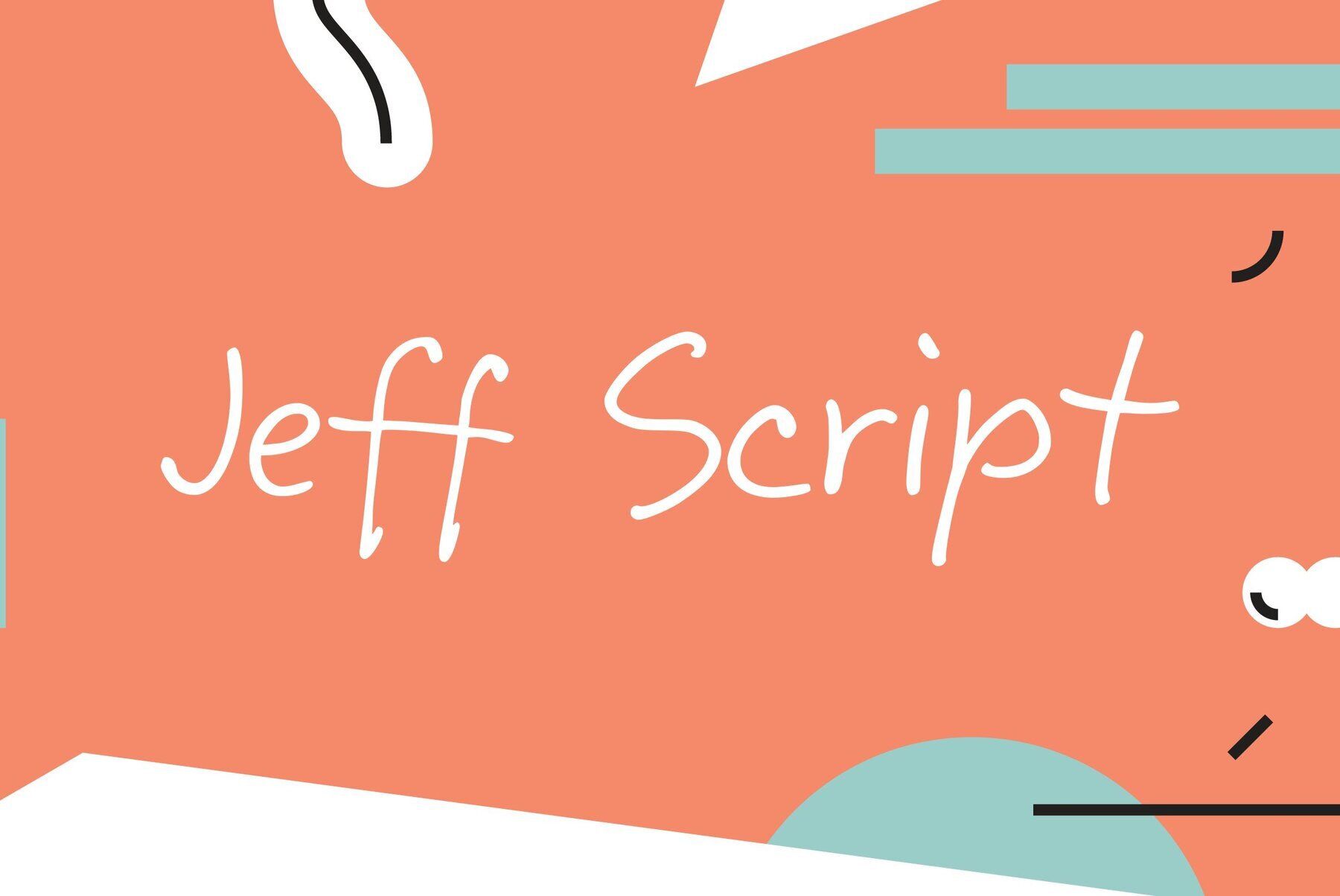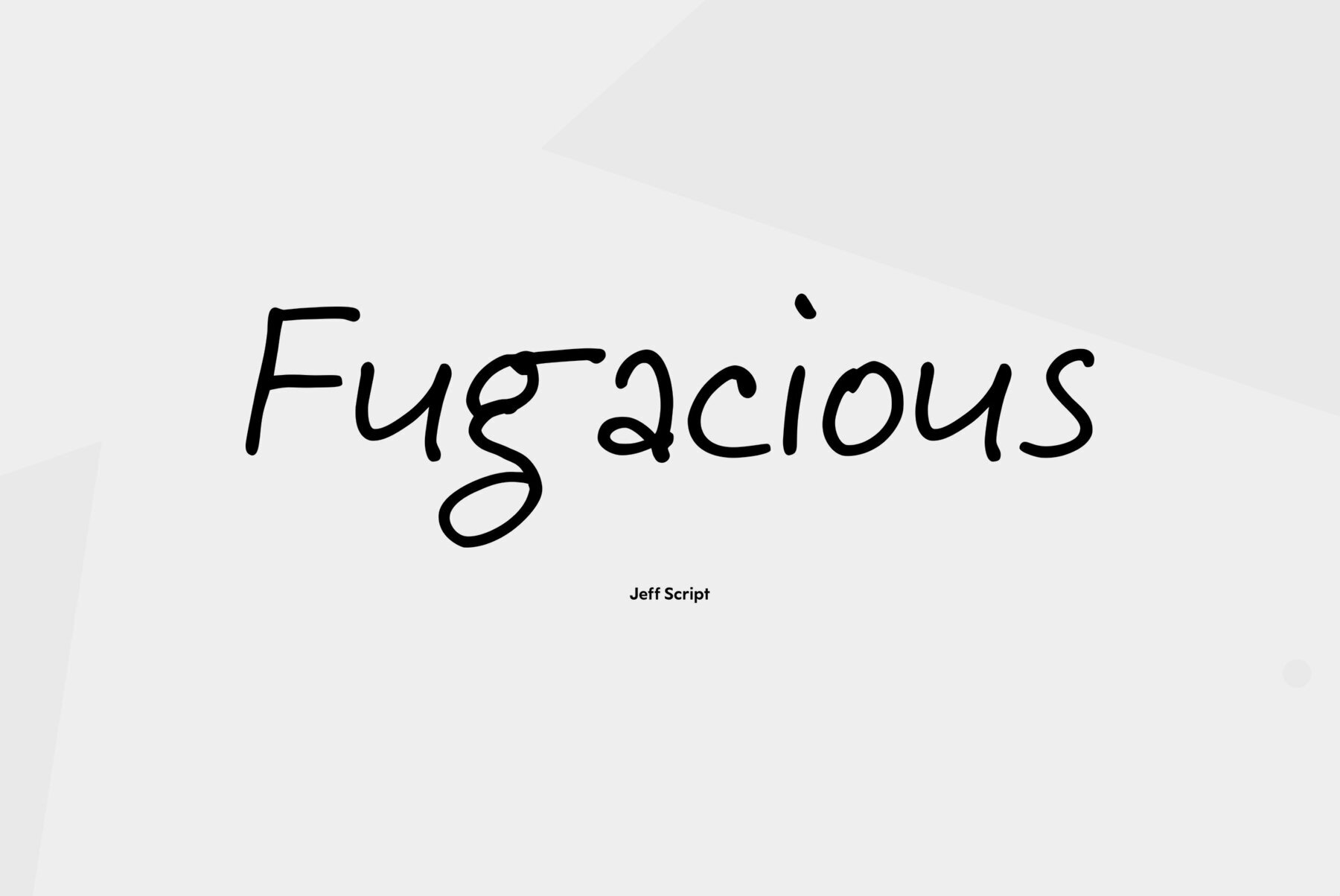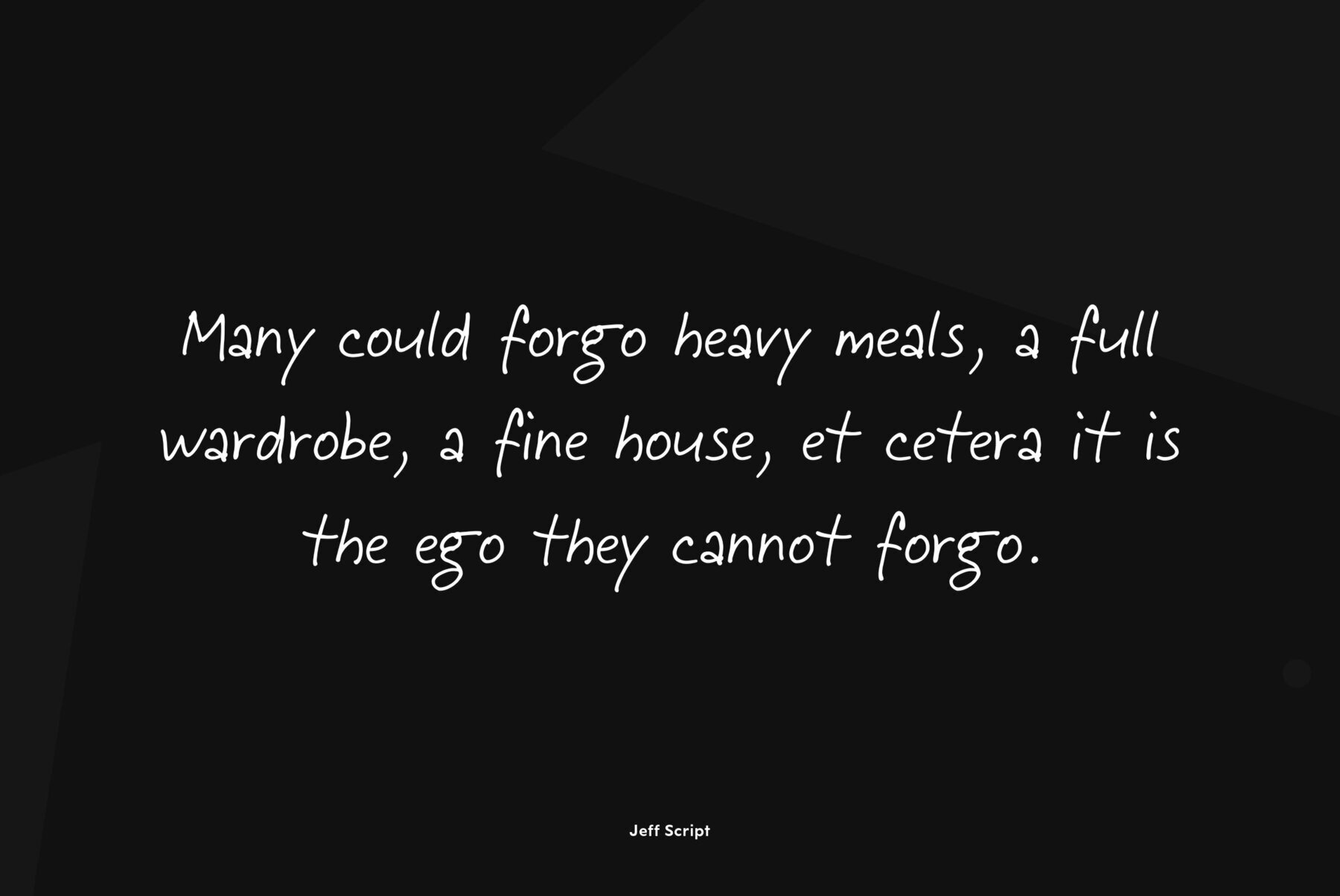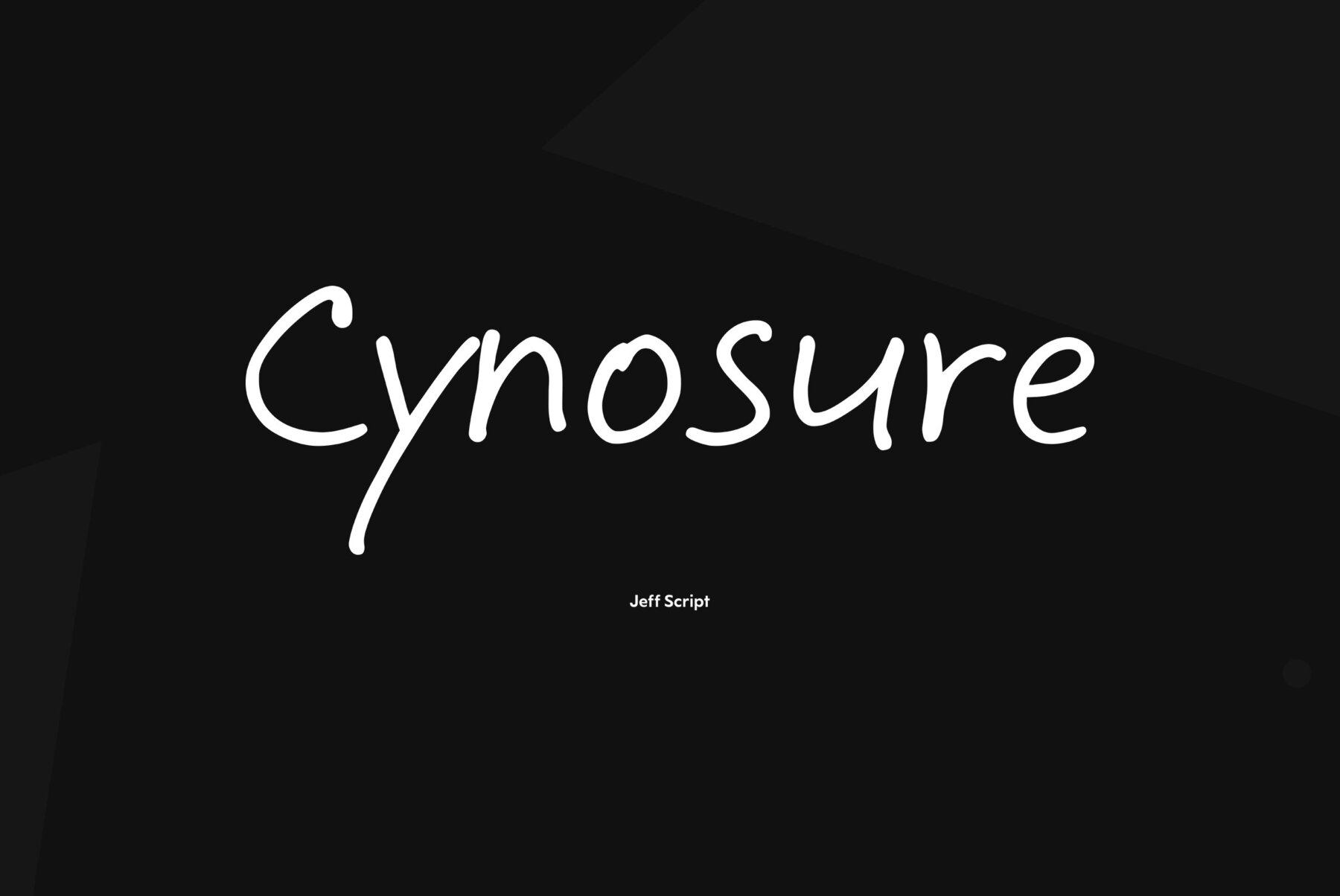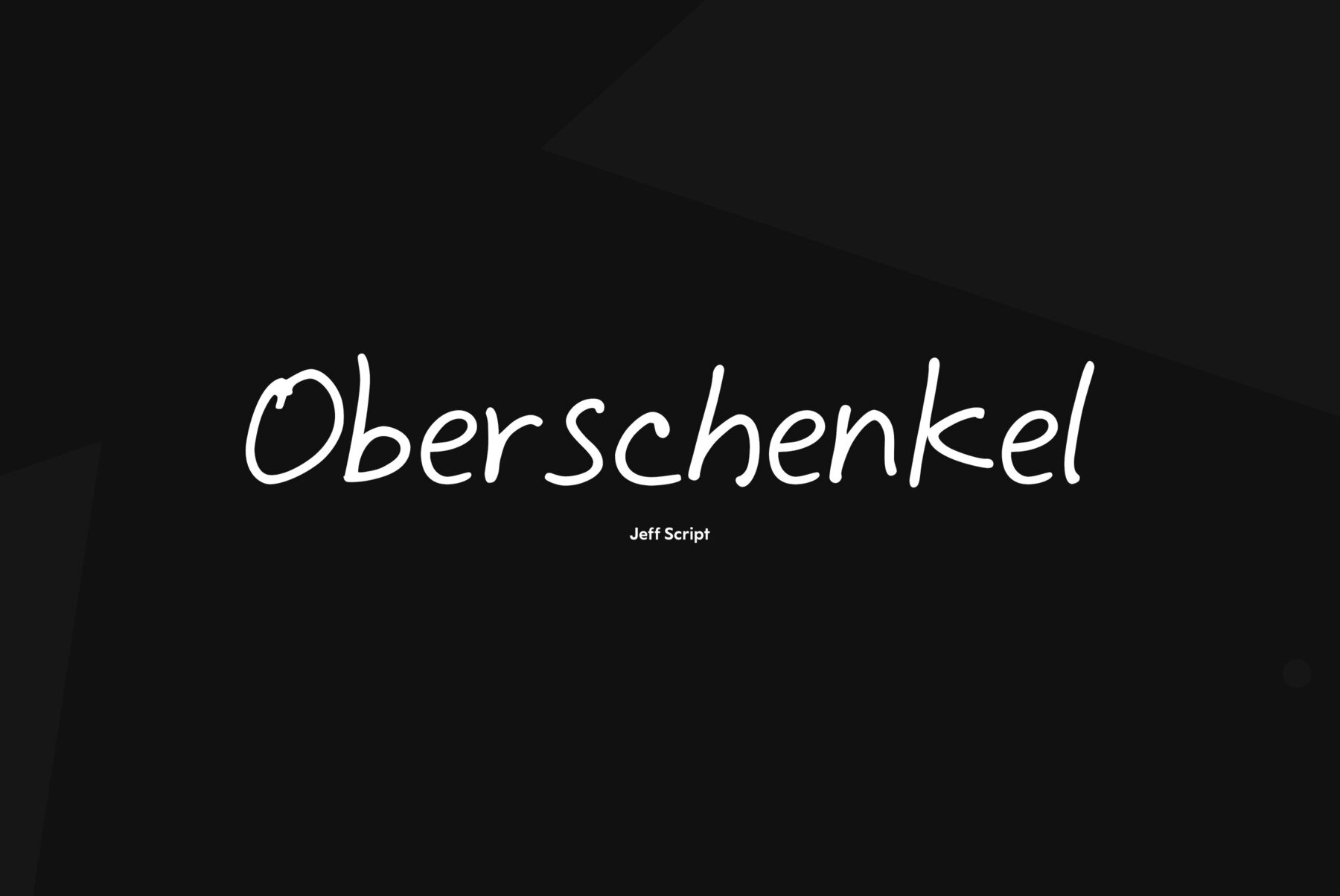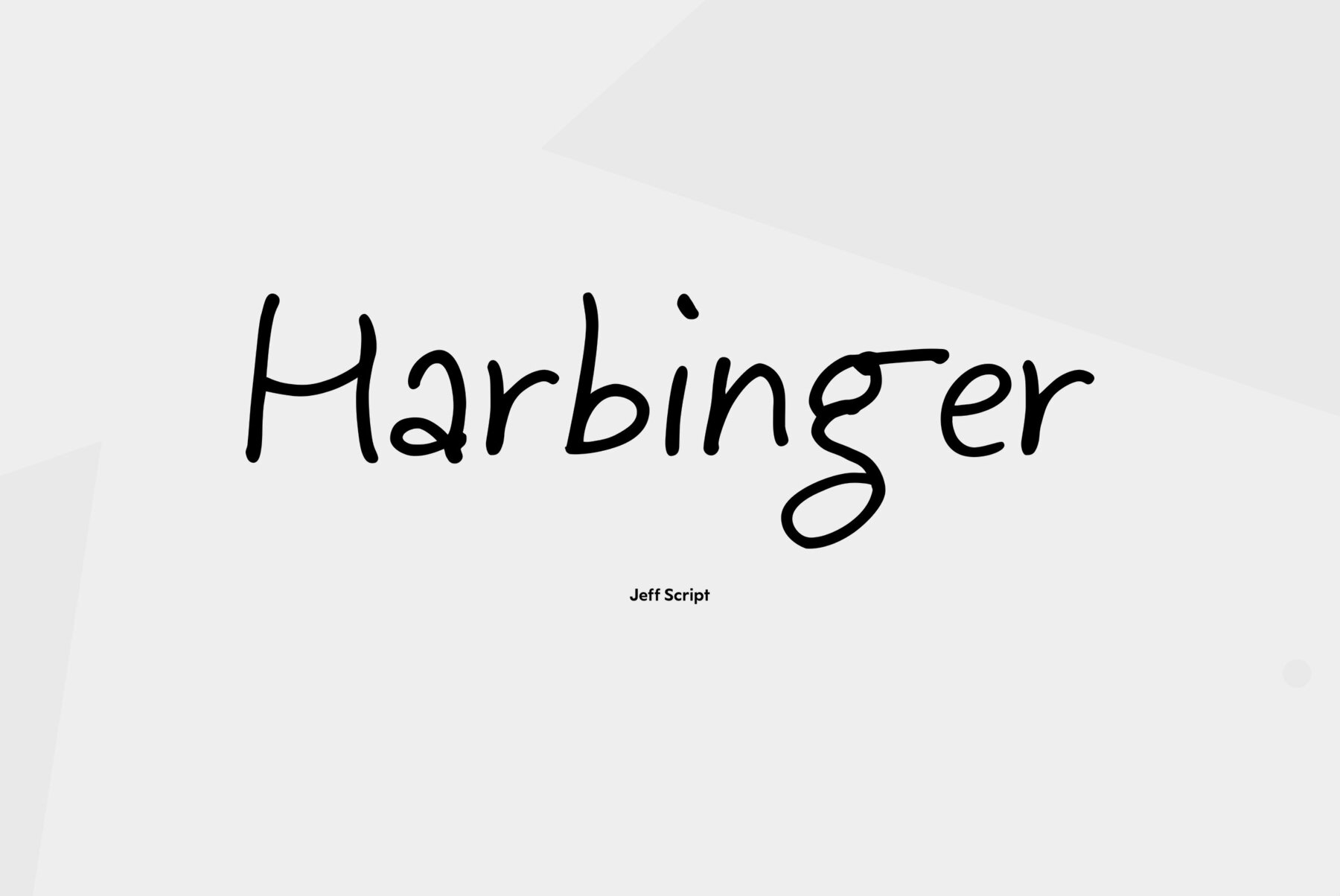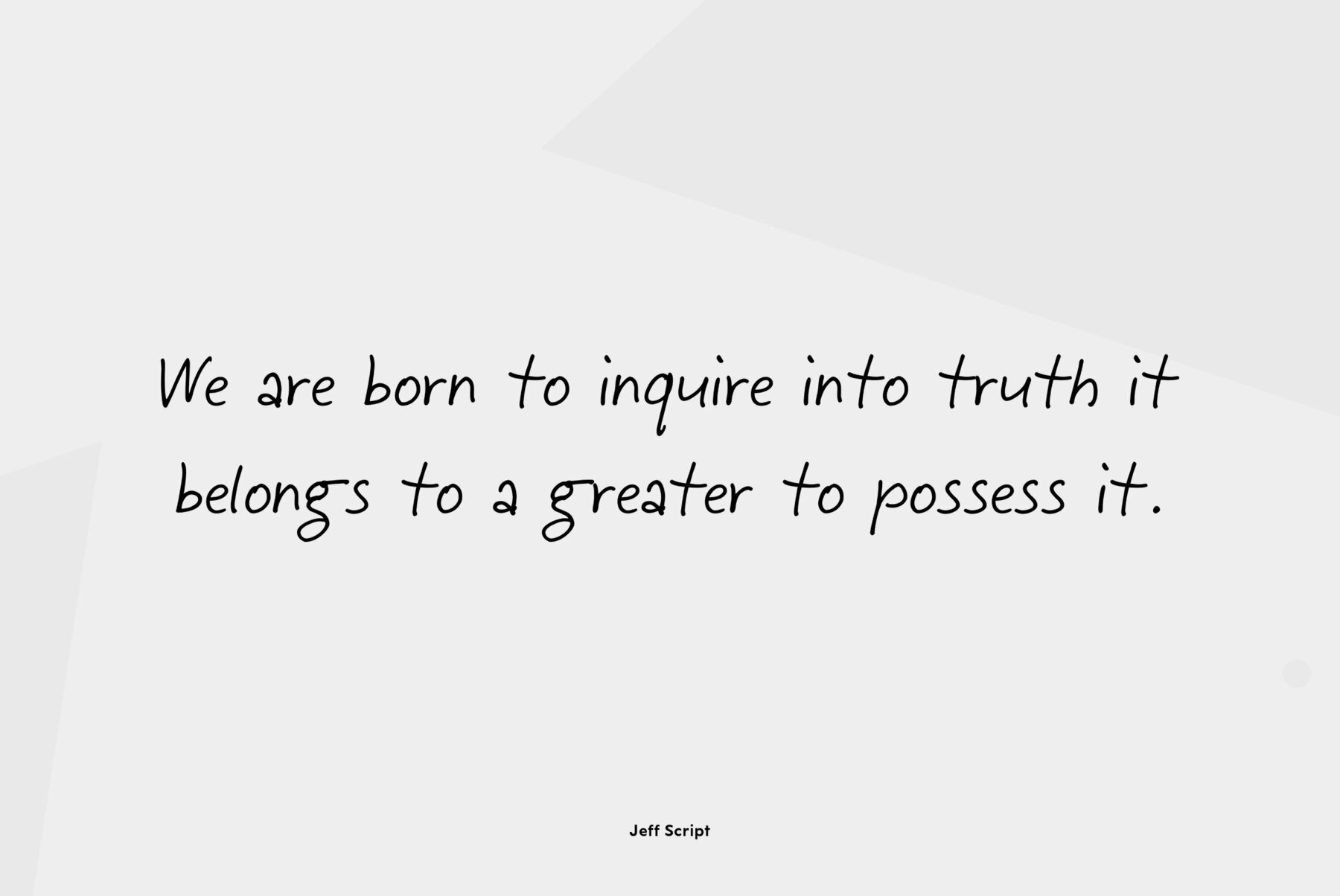
Jeff Script
Jeff Script is based on original handwriting of renowned Russian type designer Vladimir Yefimov. Vladimir designed a plenty of Cyrillic fonts that became the classical ones between contemporary Cyrillic type designs. Being extreme busy with type projects, he never had time to digitize his own script and this lacuna was filled by Gennady Fridman. The font was developed to the 60th anniversary of Maestro and released by ParaType in 2009.